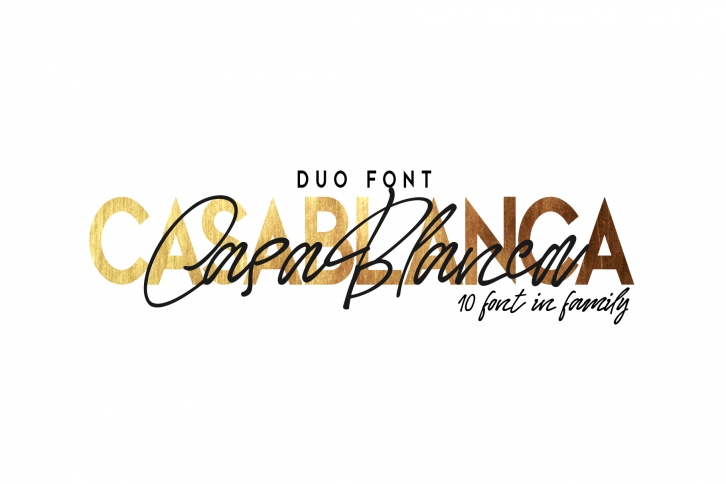
Casablanca. Duo is a great font that was designed by Luxfont. Imagine the amount of combinations you can create using this font! The archive is 16.93 MB and it was released on February 15, 2020. Casablanca. Duo looks beautiful on wedding invitations, greeting cards, logos, posters, labels, t-shirt designs, logos, business cards and is perfect for use in ink or watercolor works, fashion, magazines, packaging and food menus, children's books and more!